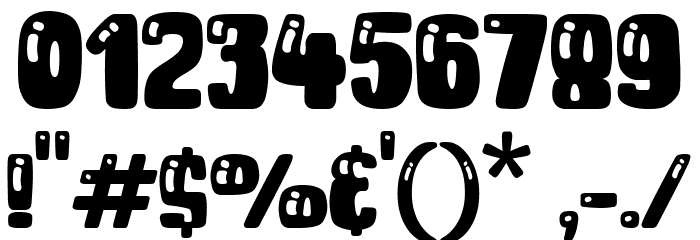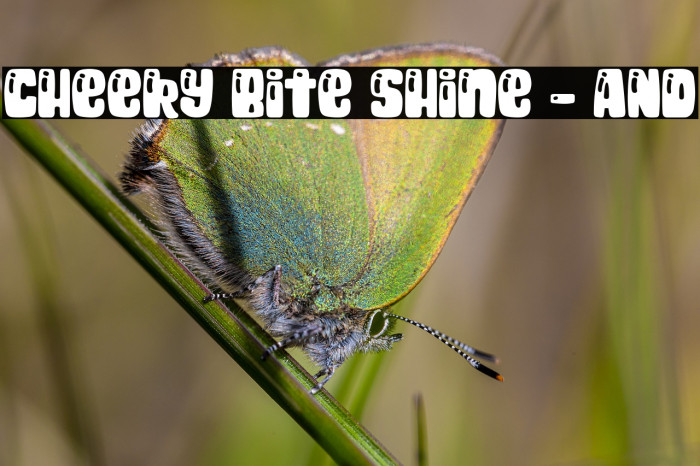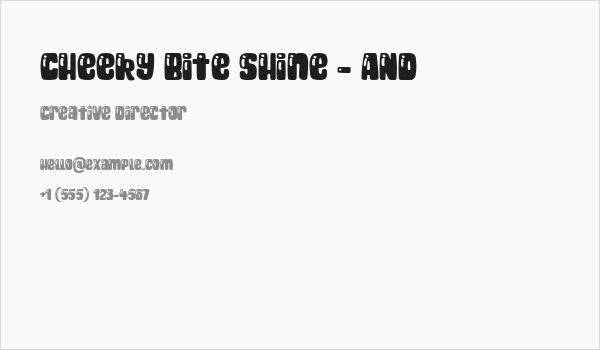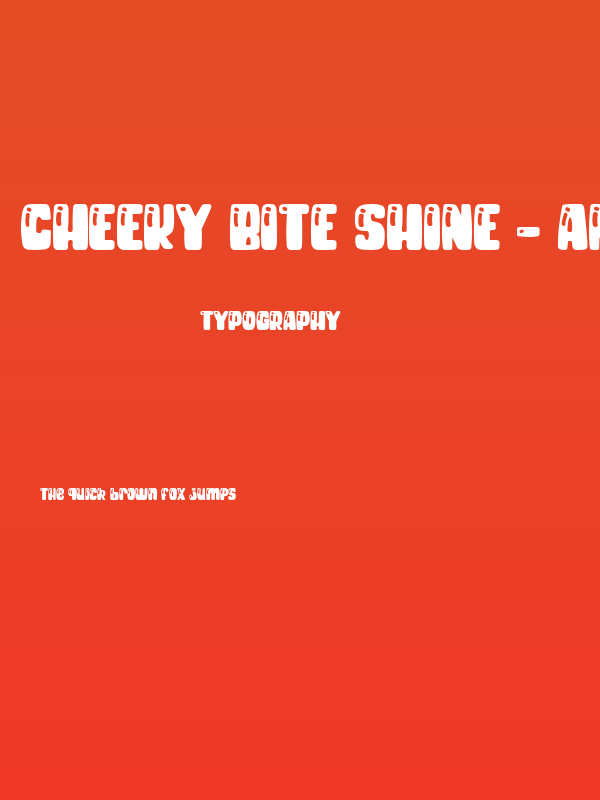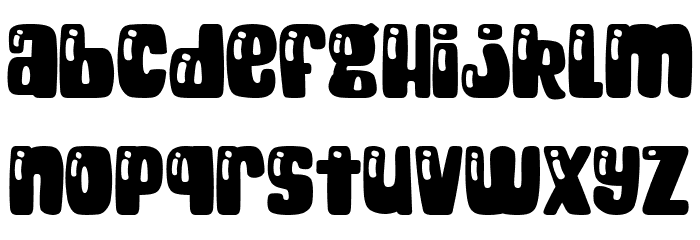
Cheeky Bite Shine - AND Font
Cheeky Bite Shine - AND Description
This playful and bold font features a unique, bubbly design with rounded edges and a glossy appearance. Each character is crafted with a sense of whimsy, incorporating small cut-out details that add a touch of charm and personality. The font's thick strokes and rounded forms make it highly legible, while the playful elements give it a distinctive, eye-catching look. It's perfect for projects that require a fun and engaging typeface, such as children's books, playful branding, or creative advertising. The font's boldness and unique style ensure it stands out in any design context.
Overall StylePlayful, Modern
Use CaseHeadlines, Logos, Branding
Proposed ProjectsIdeal for children's books, playful branding, creative advertising, and eye-catching headlines.